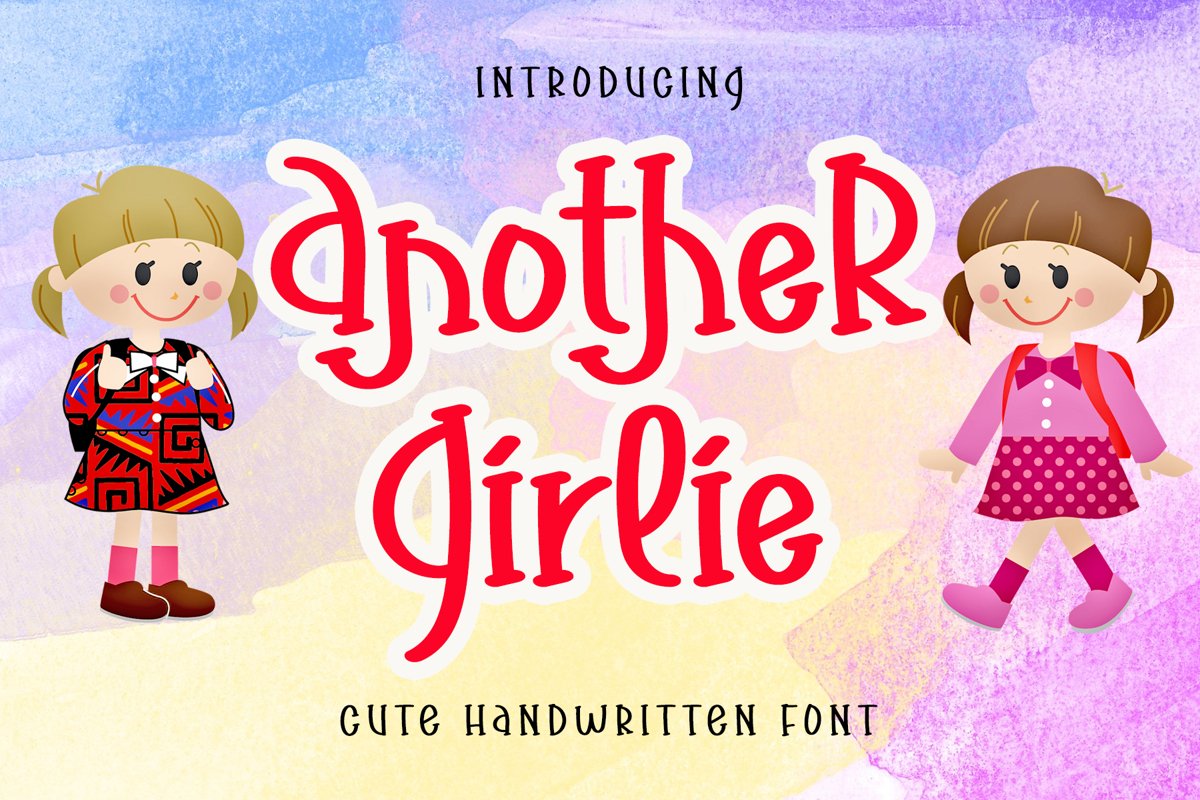
Another Girlie is cute, sweet, and playful. Its uniqueness is so match for any playful project design.
Another Girlie is such the perfect font for any kind of your playful and fun project, such as advertisements, branding, graphic design, quotes, and others. Make your design looks more beautiful!